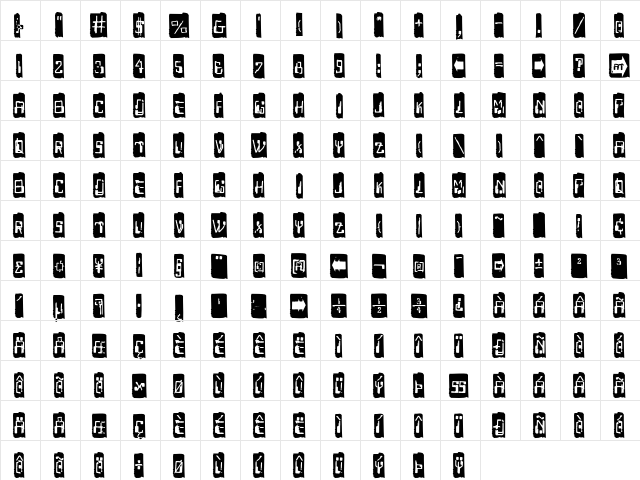
Capricorn38 Cameo Font Preview
Capricorn38 Cameo
Capricorn38 Cameo Font Details
| Style | Cameo |
Design Context for Capricorn38 Typeface
Capricorn38 is a composed and adaptable typeface that performs quietly and consistently across a wide range of design contexts.